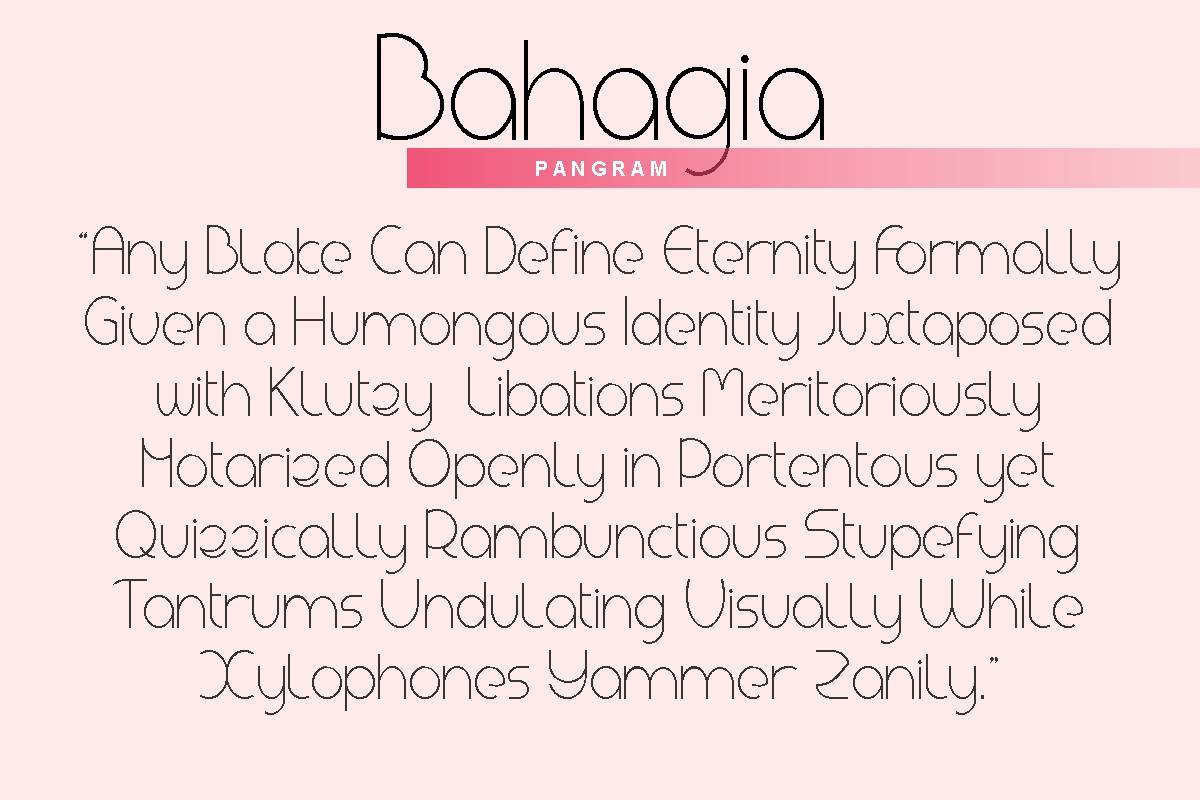
Bahagia is a sleek and modern sans serif font with a light weight and an airy, geometric feel. Its clean, rounded letterforms and minimalist strokes give it an elegant yet playful personality, ideal for contemporary branding, headlines, and creative projects that want to convey friendliness and sophistication. This font works well in digital and print use where a fresh, stylish impression is desired.
Bahagia Font
About Bahagia Font
| Font family | Bahagia Font |
| Release date | 2021-02-11 |
| Designer | Andri Nuryadin (enway studio) |